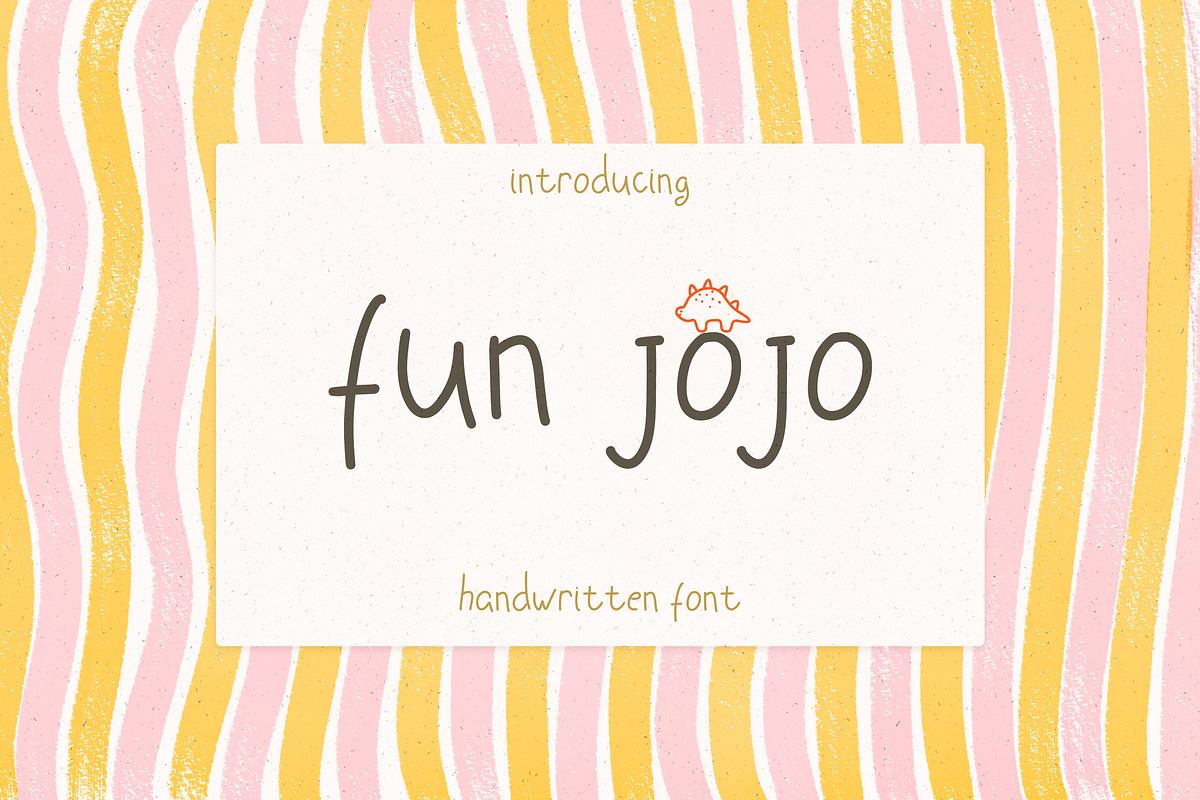
Please note that you must purchase this font for commercial use. You can download Fun JOJO Handwritten Font for free, strictly for personal testing purposes only. Fun JOJO is a playful and cheerful handwritten font that brings energy, creativity, and a carefree vibe to your designs. With its bouncy baseline, quirky letterforms, and informal charm, Fun JOJO Handwritten Font Free Download is perfect for kids’ projects, greeting cards, party invitations, DIY crafts, branding, and fun social media posts.
This font feels like joyful doodles come to life—great for adding personality and warmth. It includes uppercase and lowercase letters, numerals, punctuation, and multilingual support, offering flexibility for various creative uses.
Whether you're designing for young audiences or simply want to add a lighthearted touch, Fun JOJO delivers joy and uniqueness to every word.